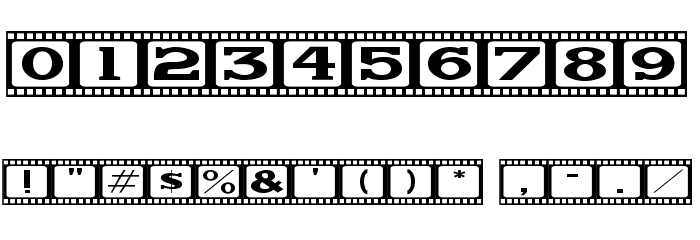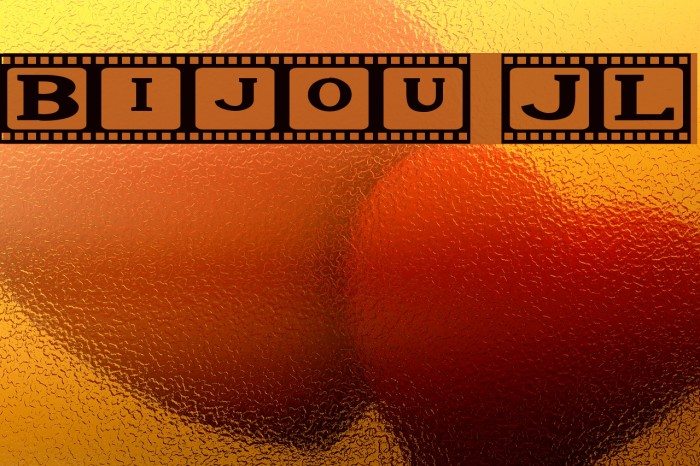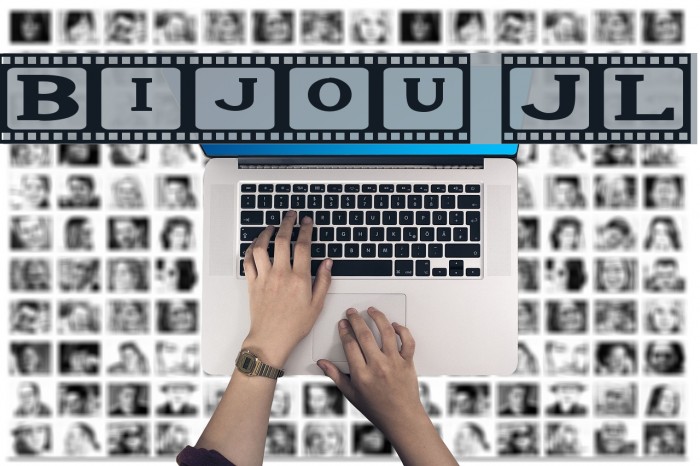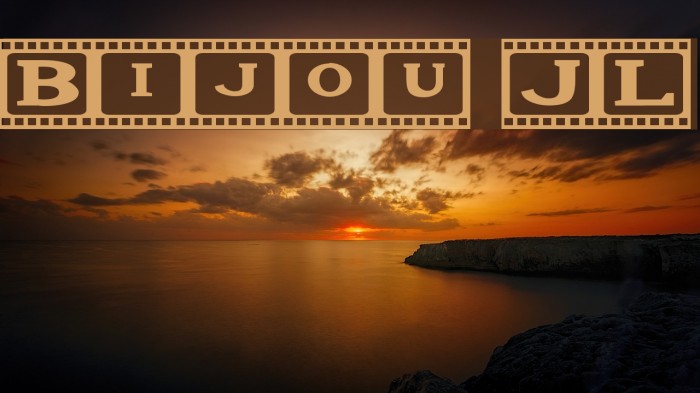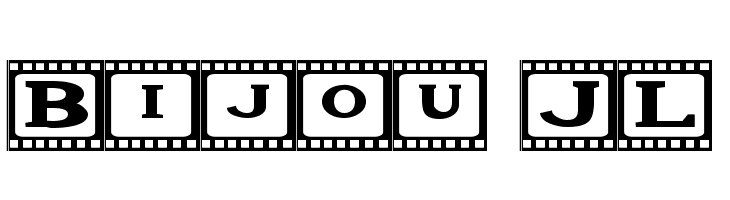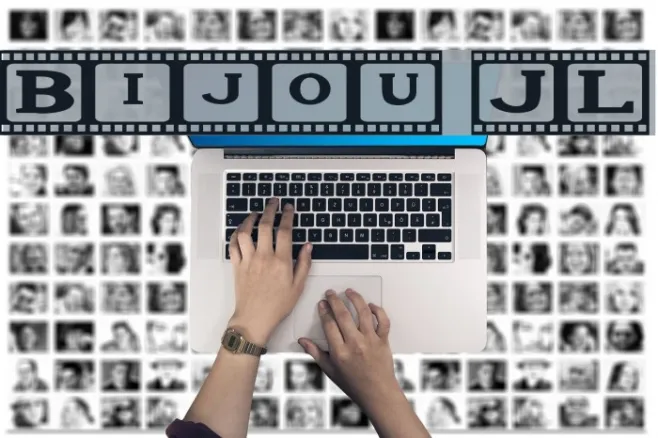
Bijou JL Font
This font features a unique design where each character is enclosed within a filmstrip-like border, giving it a cinematic and vintage feel. The letters are bold and uppercase, with a strong presence that makes them stand out. The numbers and special characters follow the same style, maintaining consistency throughout the set. The font's distinct appearance makes it ideal for projects that require a retro or entertainment-related theme. Its decorative nature is perfect for titles, posters, or any design that seeks to capture the essence of classic cinema.
A bold, cinematic font with characters enclosed in filmstrip borders.
- Proposed Projects: Ideal for movie posters, retro-themed designs, entertainment branding, and decorative titles.
- Overall Style: Vintage